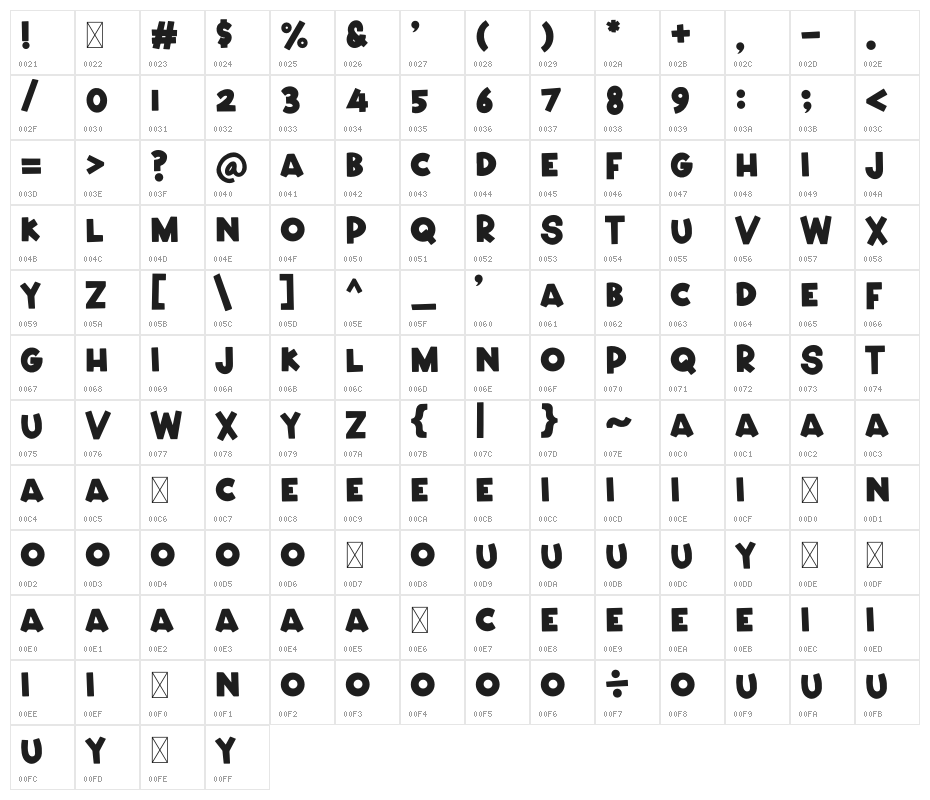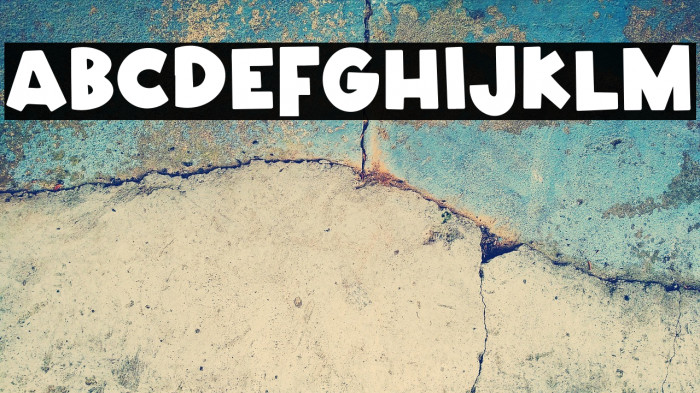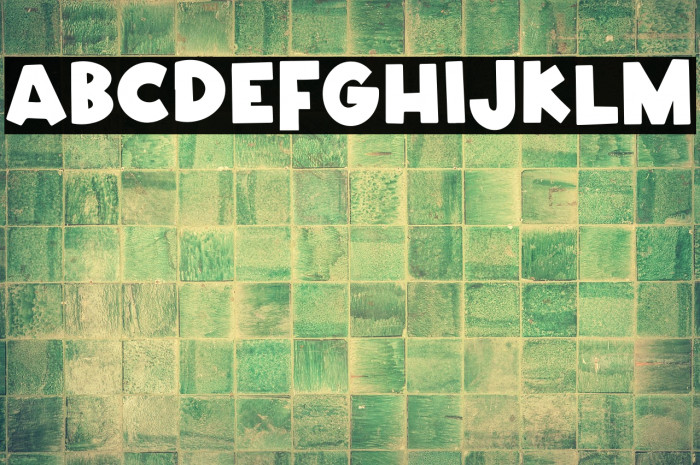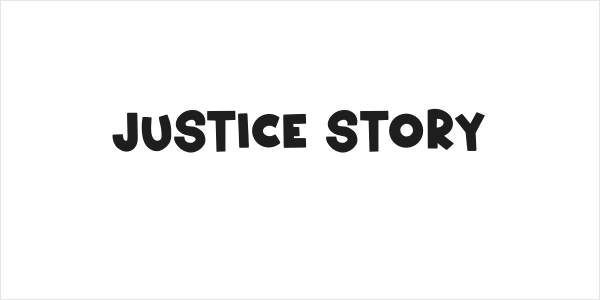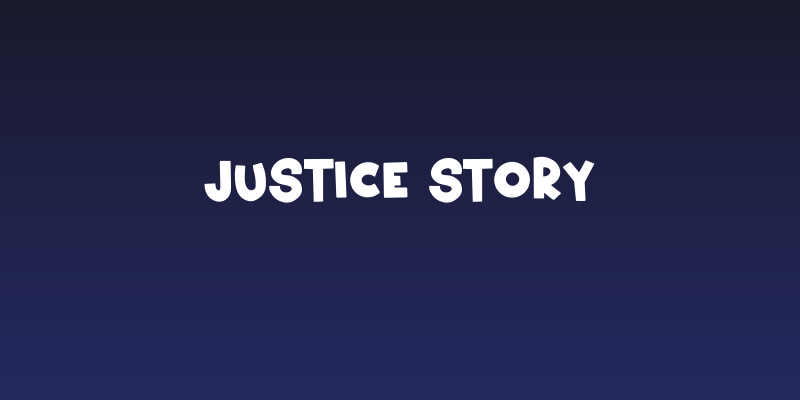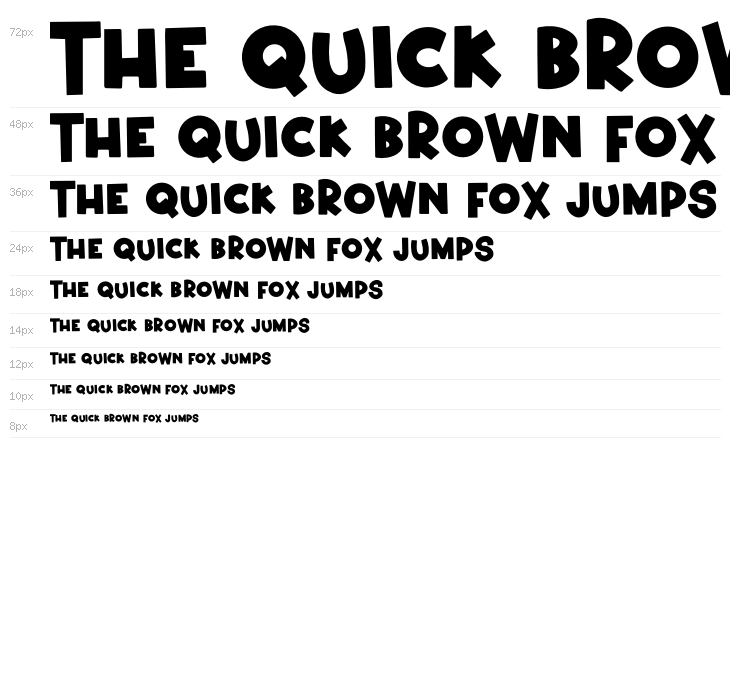
Justice Story Font
Justice Story Description
This font features bold, playful characters with a distinctly chunky and robust appearance. The letters are crafted with a strong emphasis on geometric shapes, giving them a modern and dynamic feel. The uppercase and lowercase letters maintain a consistent style, with rounded edges and a slightly irregular form that adds a whimsical touch. The numerals are equally bold, ensuring they stand out clearly. Special characters are designed with the same boldness, making them suitable for attention-grabbing designs. The overall style is both fun and impactful, making it ideal for projects that require a strong visual presence.
| Proposed Projects | Ideal for children's books, posters, comic strips, and playful branding. |